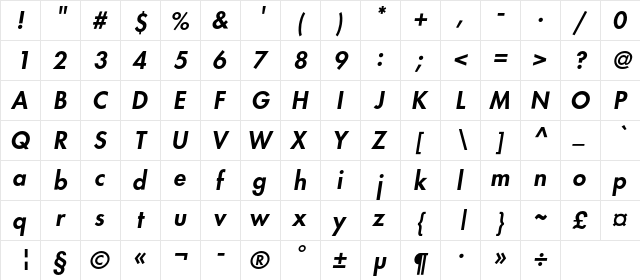
FavoritHeavyC Italic Font Preview
FavoritHeavyC Italic
Design Context for FavoritHeavyC Typeface
FavoritHeavyC is a composed and adaptable typeface that performs quietly and consistently across a wide range of design contexts. The slanted form adds forward momentum and visual energy.
Pro Tip: Try FavoritHeavyC for annotation and caption copy alongside an upright companion — the contrast in angle creates a dynamic but ordered typographic system.